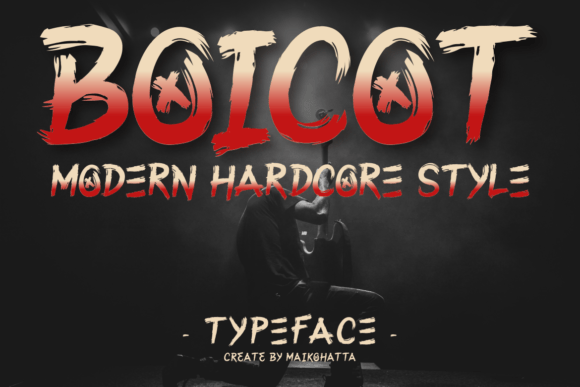
The Unyielding Charm of Boicot Font: A Modern Hardcore Style
I still remember the frustration of working on a project, determined to find the perfect font that embodied the raw energy and boldness my design demanded. It was as if the entire typography world had conspired against me, with elegant serifs and playful scripts mocking my every click. Then, like a beacon in the night, I stumbled upon the **Boicot** font. This modern hardcore style lettering instantly resonated with my design needs, exuding strength, boldness, and an aggressive aesthetic that screamed to be noticed.
Unleashing the Power of Boicot
Boicot is not just another font; it’s a statement. Combining modern elements with influences from hardcore typography styles, Boicot showcases strong characteristics, sharp lines, and dynamic shapes that make it perfect for designs that demand attention. Whether you’re a designer looking to make a bold statement, a crafter seeking to add some edge to your project, or a creative hobbyist experimenting with typography, Boicot is sure to leave a lasting impression.
- ✨ Bold and Edgy Aesthetic: Boicot’s design is undoubtedly its strongest feature. The sharp lines and dynamic shapes give it an unmistakable hardcore style that’s hard to ignore.
- ✅ Versatility: Despite its bold nature, Boicot surprisingly works well in various design contexts, from posters and flyers to digital banners and logos.
- 💻 OpenType Features: Boicot comes with a range of OpenType features, including stylistic alternates and glyphs, which provide ample room for creative experimentation.
While Boicot is an excellent font, it’s not without its quirks. For instance:
- 🤔 Legibility at Small Sizes: Boicot’s bold design can sometimes work against it when used at very small sizes. It may appear somewhat illegible or pixelated, depending on the medium.
- ⚠️ Limited Softness: Boicot’s hardcore style means it lacks the softer, more rounded edges that some designs might require. This could limit its use in projects that demand a gentler aesthetic.
Exploring Alternatives: 4 Fonts Similar to Boicot
If you’re looking for something similar to Boicot or want to experiment with different styles, consider these alternatives:
- Blaka: Like Boicot, Blaka offers a strong, bold aesthetic but with slightly rounded edges, making it suitable for designs that require a bit of softness.
- Akkurat: This font shares Boicot’s modern and clean lines but with a more neutral and versatile approach, making it perfect for projects that need a professional edge.
- Impact: A classic bold font, Impact offers a similar hardcore style to Boicot but with a more traditional approach, suitable for headings and titles that demand attention.
- Dosis: For a more elegant take on bold typography, Dosis offers a geometric and clean aesthetic that, while different, shares Boicot’s confidence and strength.
The Story Behind Boicot: Designer Inspiration
Boicot’s creation is a testament to the power of modern typography and the desire to push boundaries. While the actual origins of Boicot might be shrouded in mystery, it’s clear that its design was inspired by the raw energy of hardcore music and the bold statements it makes. Designers looking to tap into this aesthetic can find endless inspiration in Boicot’s sharp lines and dynamic shapes.
Q: What makes Boicot a modern hardcore style font?
A: Boicot’s modern hardcore style comes from its bold and aggressive aesthetic, characterized by sharp lines and dynamic shapes, making it perfect for designs that demand attention and convey strength.
Q: Is Boicot suitable for body text?
A: While Boicot is incredibly versatile, its bold nature makes it more suited for headings and titles. For body text, a more readable font might be preferable, though it ultimately depends on the project’s specific needs and design goals.
Q: Does Boicot support OpenType features?
A: Yes, Boicot comes with a range of OpenType features, including stylistic alternates and glyphs. These features allow for creative experimentation and can add variety to your typography.